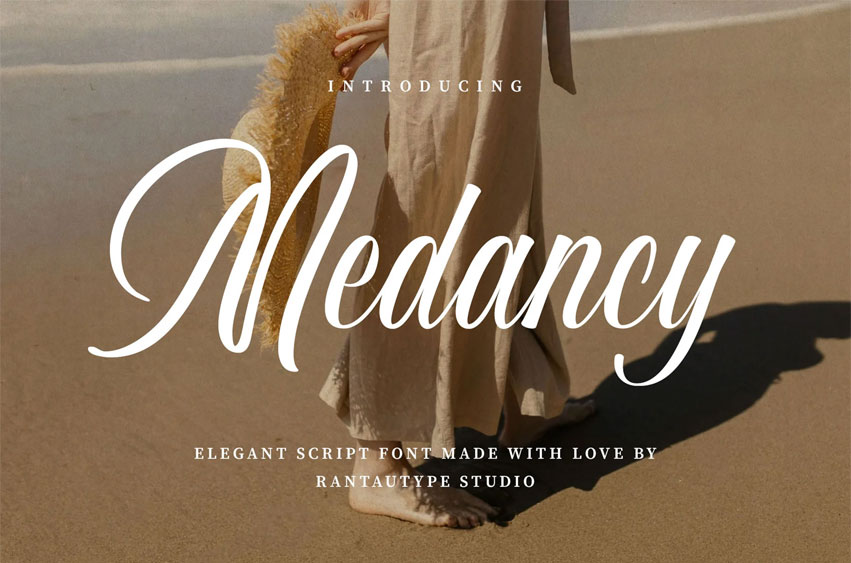
Medancy Font is an elegant script with a flowing curve, embracing grace and vintage vibes. Medancy is a perfectly choice for any creative endeavor, creating, modern, chic, lifestyle design such as logotype, title, cover, branding, invitations, wedding designs, display and magazine, social media posts, advertisements, printed quotes, product packaging, corporate brand, product designs, labels, photography, watermarks, special events and any other project with vintage touch.